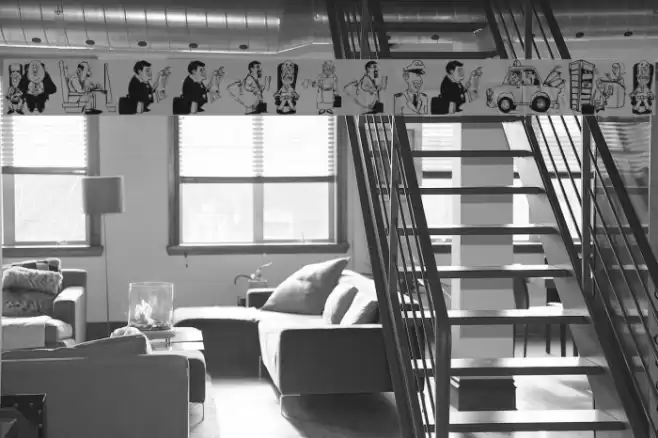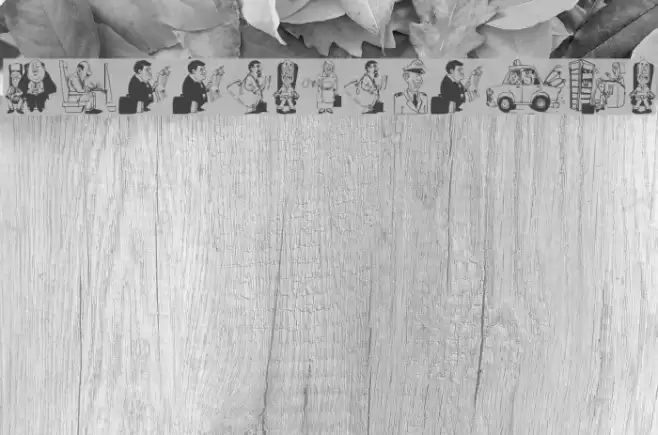
PassengersFun Font
PassengersFun Description
A playful, cartoon-style dingbat font featuring humorous illustrations of various passengers and travel-related scenes, each character representing a unique scenario or person commonly seen in airports or during travel.
Cartoon dingbat font with travel and passenger-themed illustrations from Uncategorized fonts.
- Proposed Projects: Travel brochures, airport signage, children's books, playful posters, event invitations, educational materials.
- Overall Style: Playful, Humorous, Cartoonish, Decorative
- Use Case: Illustrative accents, thematic graphics, decorative elements, not for text reading.